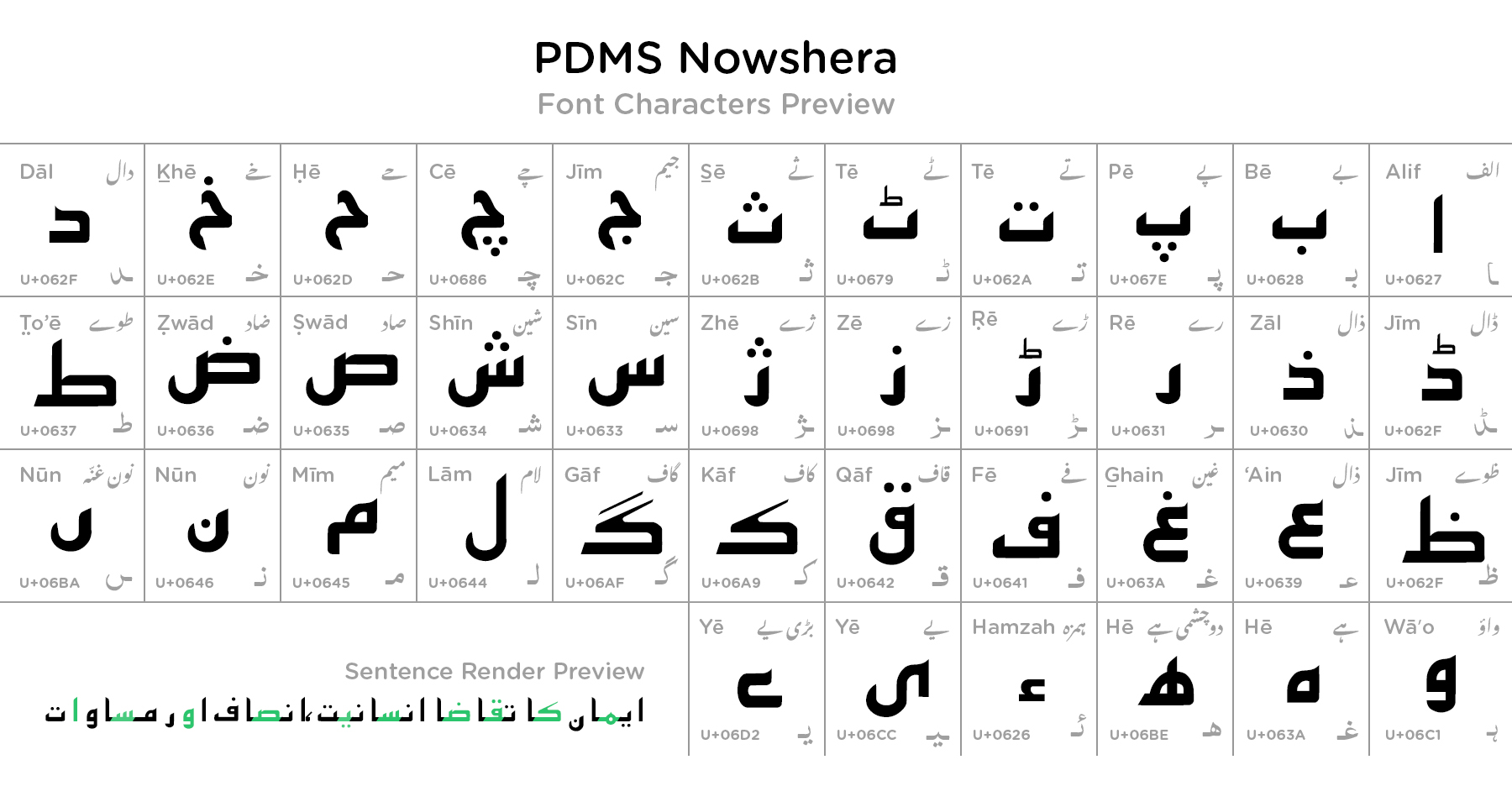
PDMS Nowshera, developed by Pakistan Data Management Services, offers a modern take on Urdu typography with its distinctive wide font style. Inspired by the Kufic script, this font features a filled and wide design with a geometric feel. Released on November 14, 2019, the font offers an extensive list of 249 characters and special symbols and 432 glyphs, supporting Arabic, Latin, Hebrew, and Symbols across various Unicode blocks. Its normal font-weight and medium width ensure versatility and compatibility across different languages and applications.
The font's simple design with horizontal emphasis enhances its legibility, making it highly readable even at smaller sizes. Its thick and dynamic thickness and impactful and changing strokes add visual interest and depth to the text. PDMS Nowshera's geometric feel and robotic look set it apart, making it ideal for short text passages, especially in tech branding, logos, and other creative projects. With its clean and modern appearance, this font offers a fresh perspective on Urdu typography, suitable for a wide range of digital and print applications.